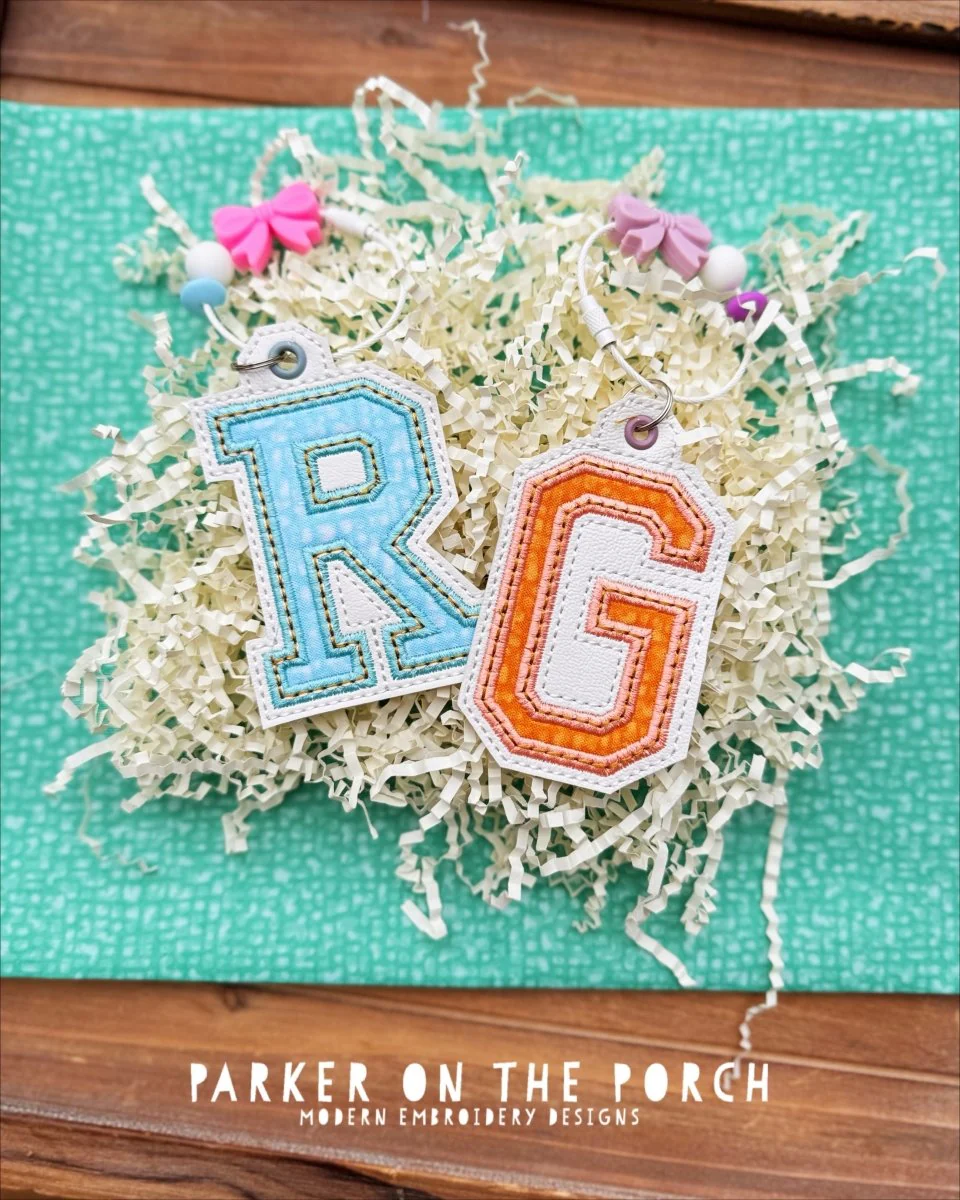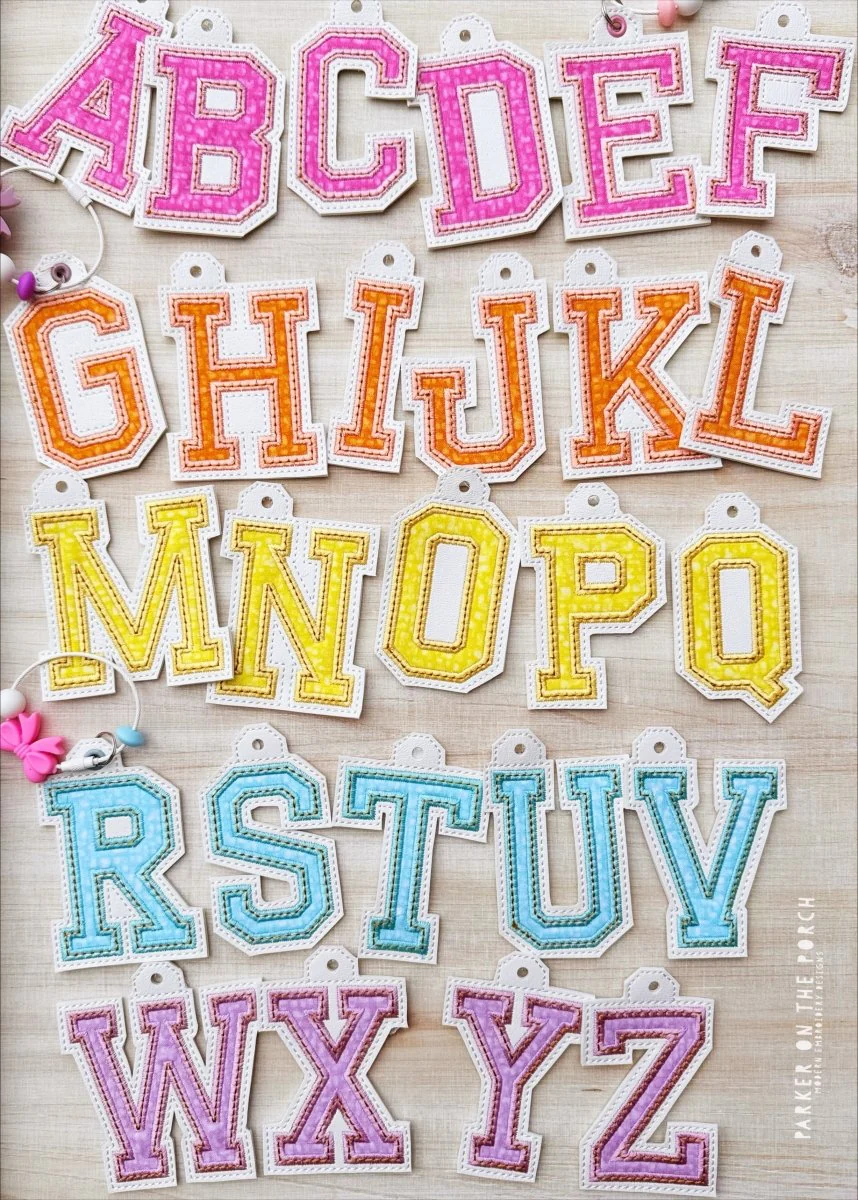
Bag Tag - Bundle - Squad Alpha - Applique - Digital Download
Show your team pride in style with the Squad Alpha Monogram Charm Set – XL Bag Tag Appliqué.
This bold, collegiate-inspired design features a strong athletic font that stitches beautifully entirely in the hoop. Perfect for backpacks, duffel bags, or sports gear — personalize each tag with your initials or team letters for a standout custom look.
Available in XL sizing, these appliqué charms make a statement on any bag or zipper pull and pair perfectly with our Squad Alpha Coaster and Bag Tag series.